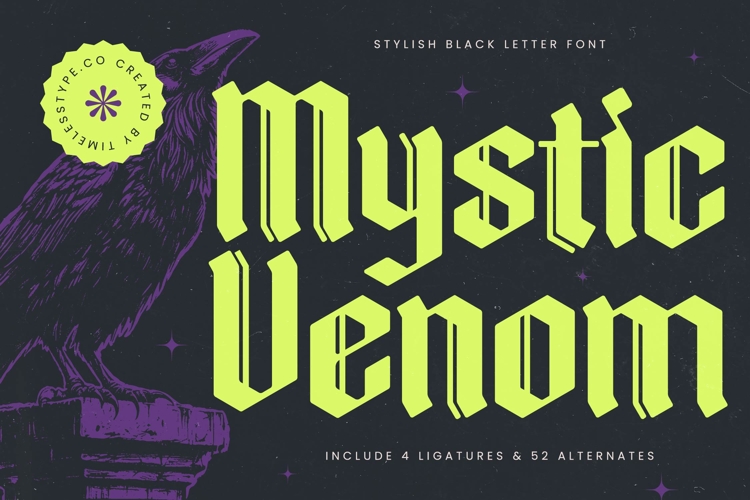
Mystic Venom - Stylish Blackletter Font
Mystic Venom is a stylish blackletter font that blends gothic tradition with modern edge. Its bold strokes, sharp angles, and dramatic details make it a powerful typeface for projects that need intensity, mystery, and bold visual presence. With 4 ligatures and 52 alternates, Mystic Venom provides designers with flexibility to create striking, custom typography while maintaining its fierce blackletter character.
This font excels in headline typography, where its bold and angular forms dominate posters, banners, and album covers with authority. In branding and logo design, Mystic Venom conveys strength and individuality, making it a perfect choice for gaming brands, music labels, streetwear, and businesses aiming for a rebellious or alternative identity. Its dark and commanding style also makes it excellent for packaging design, particularly for energy drinks, craft beer, or edgy lifestyle products where boldness is essential.
Mystic Venom thrives in advertising campaigns, event promotions, and social media graphics, where its alternates and ligatures add variety and personality. For editorial layouts, merchandise, and cultural projects, the font enhances storytelling with a raw and impactful voice that stands out.
With multilingual support, Mystic Venom adapts seamlessly to global projects, making it versatile for international use.
Ultimately, Mystic Venom is more than a blackletter font—it is a design statement of gothic strength and modern rebellion. Whether used for headlines, branding, packaging, or digital content, it ensures projects radiate power, mystique, and unforgettable character.